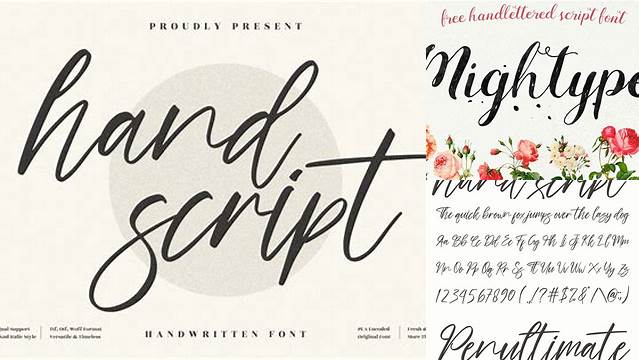
Free Hand Script Fonts: Your Ultimate Guide
Introduction to Hand Script Fonts
Hand script fonts, often called handwritten fonts, mimic the elegant and natural flow of human handwriting. These fonts bring a personal and authentic touch to various design projects, making them a popular choice for invitations, logos, branding materials, and digital designs. The beauty of hand script fonts lies in their ability to evoke feelings of warmth, intimacy, and individuality, which is often missing in more formal and structured typefaces. If you’re looking to add a touch of personality and flair to your designs, understanding the nuances of hand script fonts is crucial. Using a free hand script font can be a game-changer for your project, offering both aesthetic appeal and cost-effectiveness. The diverse range of styles available means that there’s a perfect hand script font for almost any application, from elegant wedding invitations to casual blog headers. Exploring different hand script fonts opens up a world of creative possibilities, allowing designers to craft unique and memorable visuals. A well-chosen hand script font can significantly enhance the overall impact of your design, making it feel more personal and engaging. It's not just about choosing a font that looks good; it's about selecting one that resonates with the message and mood you're trying to convey. The best hand script fonts capture the essence of human handwriting, with all its imperfections and quirks, adding a layer of authenticity to your work. By carefully considering the characteristics of each font, you can create designs that stand out and leave a lasting impression. So, whether you're designing a logo, a website, or a social media post, hand script fonts offer a versatile and stylish solution.
Types of Hand Script Fonts
Understanding the different categories of hand script fonts is essential for selecting the right one for your project. Each style has its unique characteristics and conveys a different mood and tone. We can broadly classify these fonts into several types, including formal scripts, casual scripts, brush scripts, and calligraphy-inspired fonts. Formal scripts often feature elegant loops and flourishes, reminiscent of traditional penmanship. These fonts are perfect for projects that require a touch of sophistication and class, such as wedding invitations, certificates, and high-end branding materials. Their refined appearance makes them ideal for creating a sense of formality and grace. On the other hand, casual scripts tend to be more relaxed and approachable. They mimic everyday handwriting and are great for designs that need a friendly and informal feel. These fonts work well for blog headers, social media graphics, and casual invitations. The more relaxed strokes and less structured appearance make them feel more personal and less rigid. Brush scripts, as the name suggests, are designed to look like they were created with a brush. They often have thick and thin strokes, giving them a dynamic and artistic quality. Brush script fonts are excellent for projects that require a bold and expressive look, such as posters, logos, and advertising materials. Their bold, sweeping strokes make a statement and add a handcrafted feel to the design. Calligraphy-inspired fonts draw inspiration from traditional calligraphy styles, offering a blend of elegance and artistry. These fonts can range from very formal to more contemporary, making them versatile for various design applications. Whether you're looking for the refined strokes of copperplate calligraphy or a more modern interpretation, calligraphy-inspired fonts can add a touch of sophistication and craftsmanship to your projects. By understanding these different types, you can better choose a font that aligns with the specific needs and aesthetics of your project, ensuring that your design effectively communicates its intended message.
How to Choose the Right Hand Script Font
Choosing the right hand script font can significantly impact the overall look and feel of your design. The font you select should align with the message you're trying to convey and the aesthetic of your project. There are several factors to consider when making your choice, including readability, context, and the emotional tone you want to evoke. Readability is paramount. While hand script fonts are beautiful, some can be challenging to read, especially in smaller sizes or longer texts. Ensure that your chosen font is legible in the intended application. Avoid overly decorative or intricate fonts for body text; instead, save these for headings or accents. A font that's easy to read will ensure that your message is effectively communicated, without causing frustration for the reader. The context of your project is another crucial consideration. For formal occasions like weddings or galas, an elegant and refined script font is appropriate. These fonts often feature delicate curves and flourishes, adding a touch of sophistication to your design. For more casual projects, such as blog headers or social media graphics, a relaxed and informal script font works best. These fonts tend to be less structured and more playful, creating a friendly and approachable vibe. Consider the overall tone and style of your project when selecting a font. The emotional tone you want to evoke should also guide your font choice. Different hand script fonts convey different emotions. A bold brush script can evoke a sense of energy and dynamism, while a delicate calligraphy-inspired font can convey elegance and grace. Think about the mood you want your design to create and choose a font that aligns with that feeling. A thoughtful font choice can enhance the emotional impact of your design, making it more memorable and effective. Finally, consider the font pairing. Hand script fonts often work best when paired with a simple, clean sans-serif or serif font. This creates a visual contrast that enhances readability and adds visual interest to your design. Avoid pairing multiple script fonts together, as this can create a cluttered and overwhelming look. By considering readability, context, emotional tone, and font pairing, you can confidently choose the perfect hand script font for your project.
Tips for Using Hand Script Fonts Effectively
Using hand script fonts effectively involves more than just selecting a beautiful typeface. It requires a strategic approach to ensure that the font enhances your design without overwhelming it. Here are some tips to help you use hand script fonts effectively in your projects. Firstly, use hand script fonts sparingly. These fonts are best used for headlines, titles, and short phrases, rather than for large blocks of text. Overusing a script font can make your design difficult to read and visually cluttered. By limiting the use of script fonts, you can create a more balanced and impactful design. A script font used sparingly can draw attention and add a touch of elegance, whereas overuse can diminish its impact. Pair script fonts with simple, clean fonts. Hand script fonts often pair well with sans-serif or serif fonts that have a clean and modern look. This contrast in styles can create visual interest and improve readability. A simple sans-serif font for body text paired with a script font for headlines can create a harmonious balance. When choosing a pairing font, consider the overall tone and style of your project to ensure that the fonts complement each other. Consider the size and spacing. The size of your hand script font can significantly impact its readability and visual appeal. Ensure that the font is large enough to be easily read, but not so large that it overwhelms the design. Pay attention to the spacing between letters and lines, adjusting as necessary to improve legibility. Proper spacing can make a script font appear more elegant and refined. Pay attention to kerning and leading. Kerning refers to the spacing between individual letters, while leading is the spacing between lines of text. Adjusting these settings can improve the overall readability and visual appeal of your hand script font. Tight kerning can make a script font look cramped, while too much leading can make it look disjointed. Experiment with different settings to find the right balance for your design. Use color and contrast effectively. The color of your hand script font can have a significant impact on its visibility and impact. Choose colors that contrast well with the background to ensure that the font stands out. Consider using different colors for the script font and the accompanying text to create visual interest. A well-chosen color palette can enhance the overall aesthetic of your design and make your message more compelling. By following these tips, you can use hand script fonts effectively to create visually appealing and impactful designs. Remember, the key is to use these fonts strategically and thoughtfully to achieve the desired effect.
Examples of Popular Free Hand Script Fonts
Exploring popular free hand script fonts can provide inspiration and help you discover the perfect typeface for your next project. Numerous fonts have gained recognition for their unique styles and versatility. Let's delve into some notable examples that are widely used and loved by designers. One standout example is "Great Vibes." Great Vibes is a beautifully flowing script font that exudes elegance and sophistication. Its graceful curves and delicate strokes make it ideal for wedding invitations, greeting cards, and other formal occasions. The font's refined appearance adds a touch of class to any design, making it a popular choice for projects that require a touch of sophistication. Another popular choice is "Pacifico." Pacifico is a fun and friendly brush script font that's perfect for casual designs. Its rounded letters and bold strokes give it a playful and approachable feel, making it ideal for blog headers, social media graphics, and informal invitations. Pacifico's casual charm makes it a versatile option for projects that need a touch of personality. "Kaushan Script" is another widely used free hand script font. Kaushan Script features a unique blend of casual and formal elements, making it suitable for a variety of applications. Its bold, flowing strokes give it a dynamic and expressive quality, while its refined details add a touch of elegance. This font works well for logos, posters, and other designs that need to make a statement. "Dancing Script" is a lively and playful font that's perfect for adding a touch of fun to your designs. Its bouncy baseline and whimsical letterforms give it a cheerful and energetic feel, making it ideal for invitations, greeting cards, and other lighthearted projects. Dancing Script's playful nature makes it a great choice for designs that aim to evoke joy and excitement. "Honey Script" is an elegant and flowing script font that's perfect for adding a touch of romance to your designs. Its delicate curves and refined details make it ideal for wedding invitations, love letters, and other projects that require a touch of tenderness. Honey Script's romantic flair makes it a popular choice for designs that aim to convey love and affection. These are just a few examples of the many popular free hand script fonts available. By exploring these and other options, you can find the perfect font to enhance your design projects. Remember to consider the overall tone and style of your project when making your font selection to ensure that it aligns with your intended message.
In conclusion, hand script fonts are a valuable asset for any designer looking to add a personal and stylish touch to their work. From elegant formal scripts to casual brush styles, these fonts offer a wide range of options for various design applications. Throughout this guide, we’ve explored the different types of hand script fonts, where to find them for free, how to choose the right one for your project, and tips for using them effectively. We've also highlighted some popular free hand script fonts that can serve as inspiration for your next design endeavor. The key to using hand script fonts effectively lies in understanding their nuances and how they can be best applied to different projects. By considering factors such as readability, context, emotional tone, and font pairing, you can make informed decisions that enhance the overall impact of your design. Remember to use these fonts sparingly, pairing them with clean and simple typefaces to create a balanced and visually appealing composition. Always check the licensing terms of free fonts to ensure they can be used for your intended purpose, especially for commercial projects. Resources like Google Fonts, Font Squirrel, and DaFont offer a wealth of options, but it's crucial to verify usage rights to avoid any legal complications. Hand script fonts can transform a design, adding a layer of personality and authenticity that’s hard to achieve with more generic typefaces. Whether you're designing a logo, a wedding invitation, a website, or social media graphics, a well-chosen hand script font can make your project stand out. So, go ahead and explore the world of hand script fonts, experiment with different styles, and discover the perfect typeface to bring your creative vision to life. By incorporating these fonts thoughtfully, you can create designs that not only look beautiful but also resonate with your audience on a personal level. With the right hand script font, your designs can truly make a lasting impression.